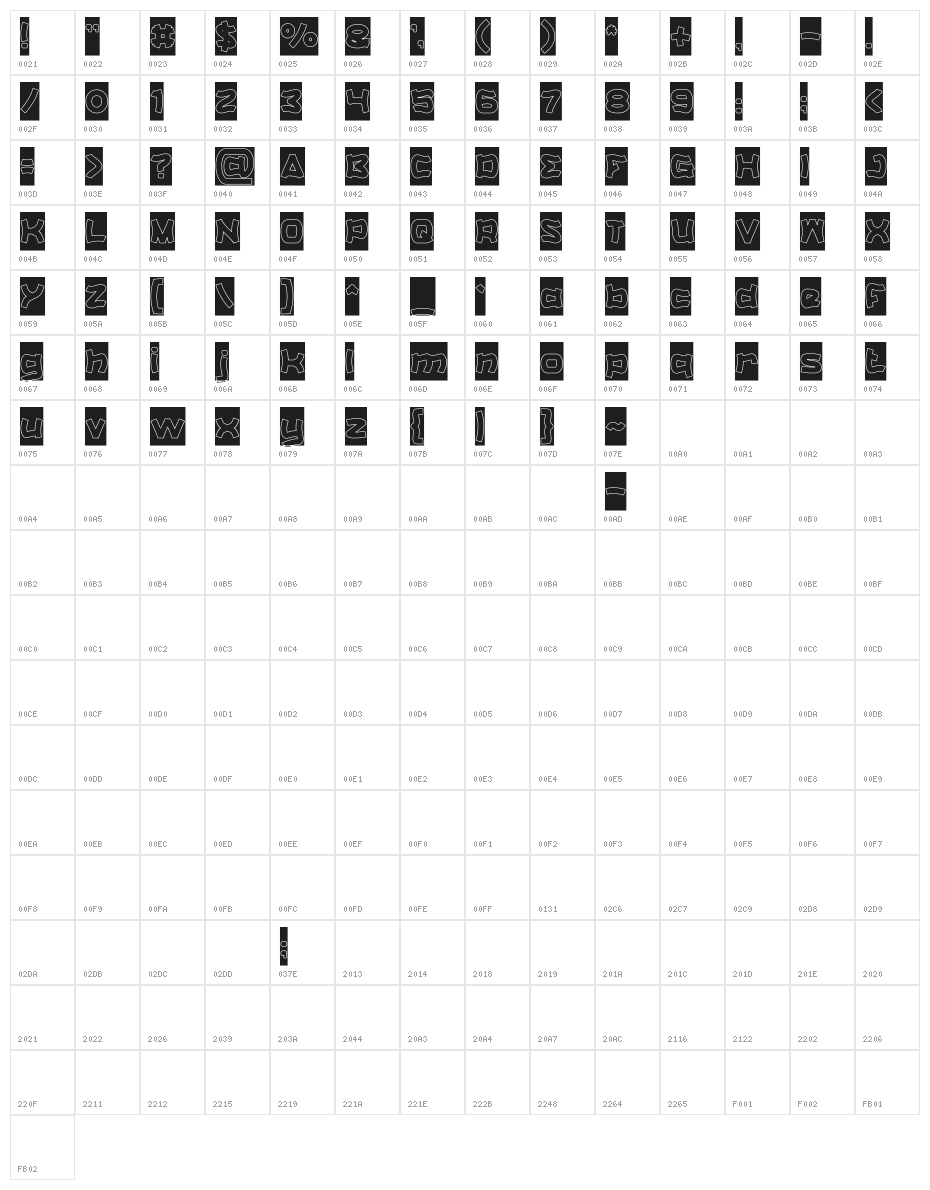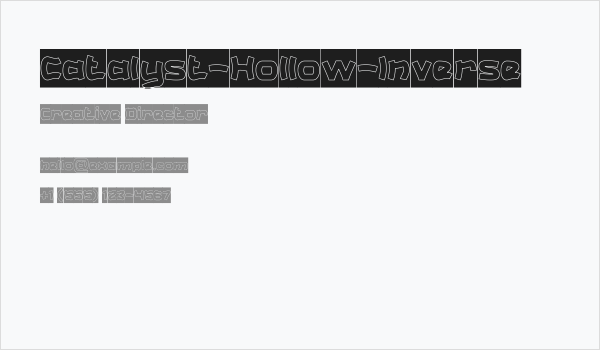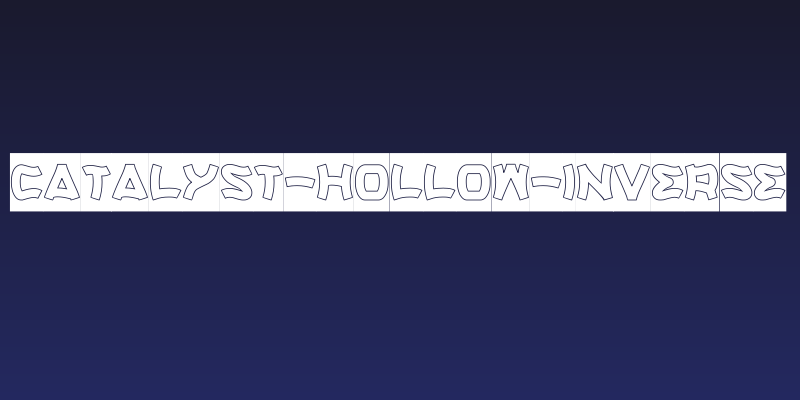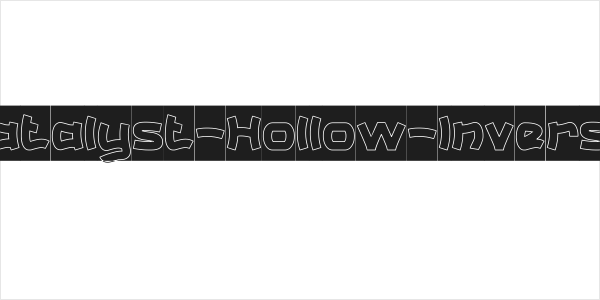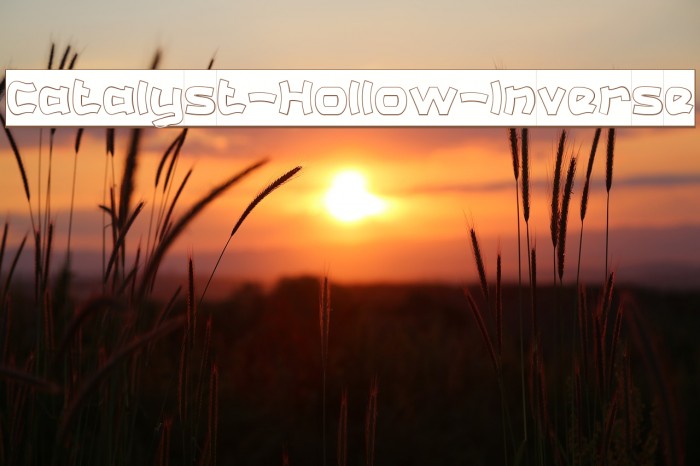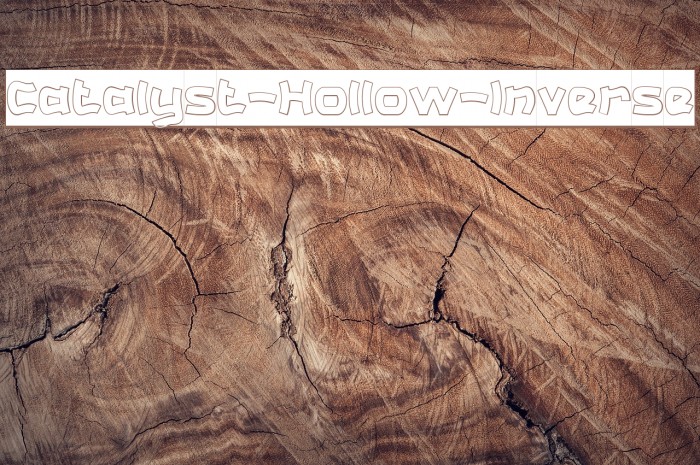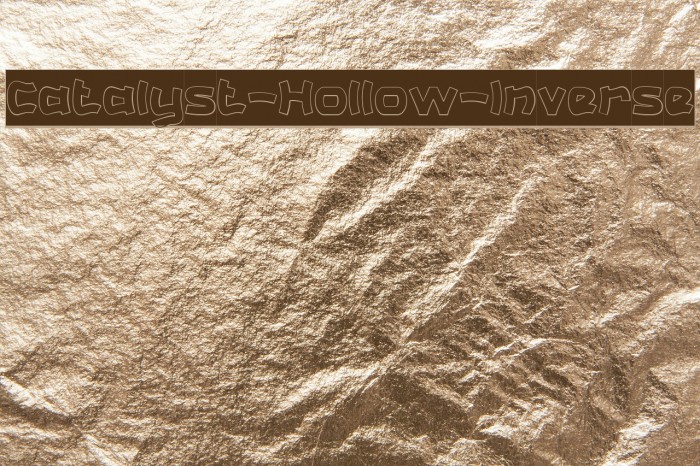
Catalyst-Hollow-Inverse Font
Catalyst-Hollow-Inverse Description
This font features a bold, hollow design with a playful and dynamic appearance. The characters are outlined with a thick, consistent stroke, creating a striking contrast against the background. The uppercase and lowercase letters maintain a uniform style, with angular and slightly irregular shapes that add a sense of movement and energy. The numerals and special characters follow the same design principles, ensuring a cohesive look across all glyphs. This font's unique style makes it ideal for projects that require a bold statement or a fun, informal touch.
CATALYST-HOLLOW-INVERSE UPPERCASE
CATALYST-HOLLOW-INVERSE LOWERCASE
CATALYST-HOLLOW-INVERSE OTHER CHARS